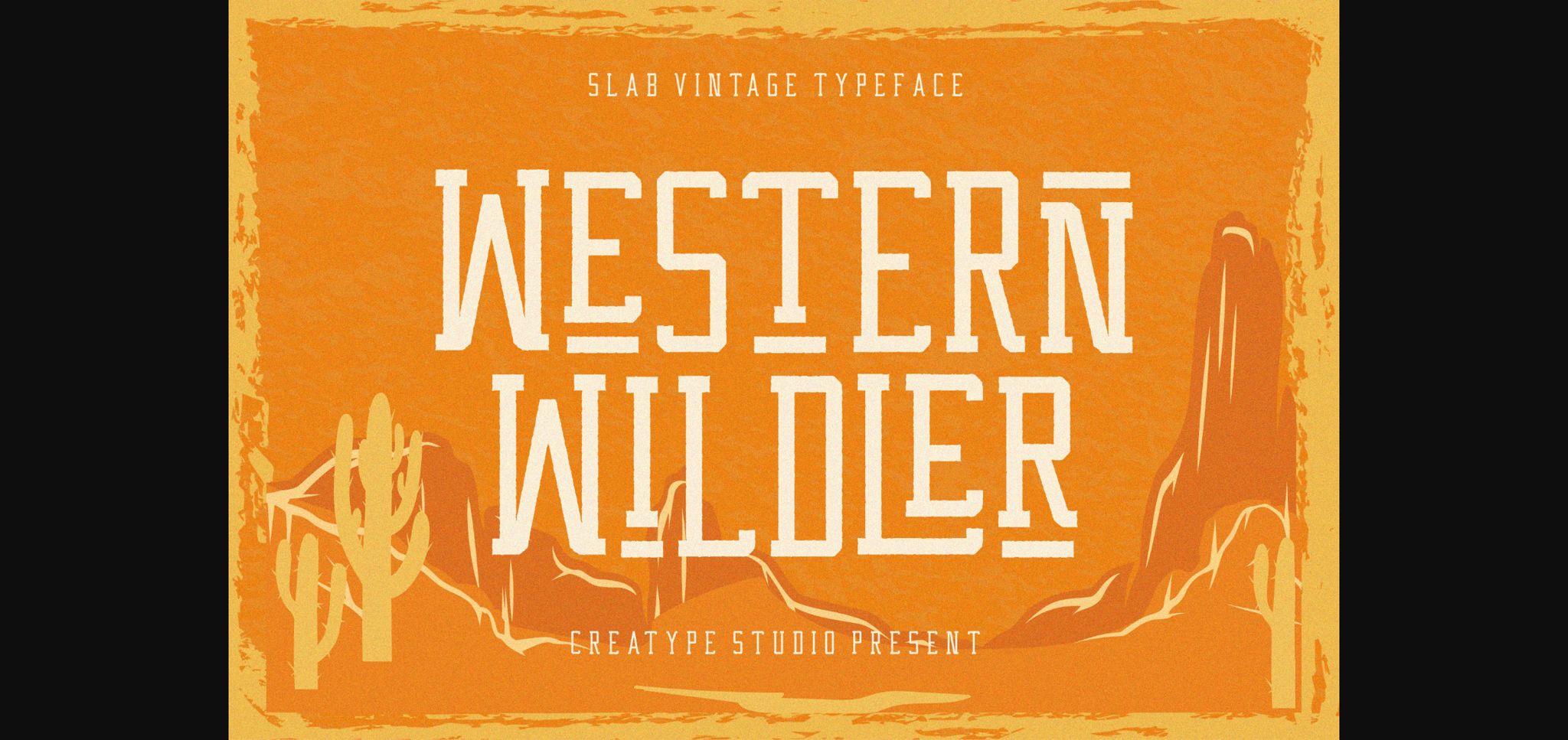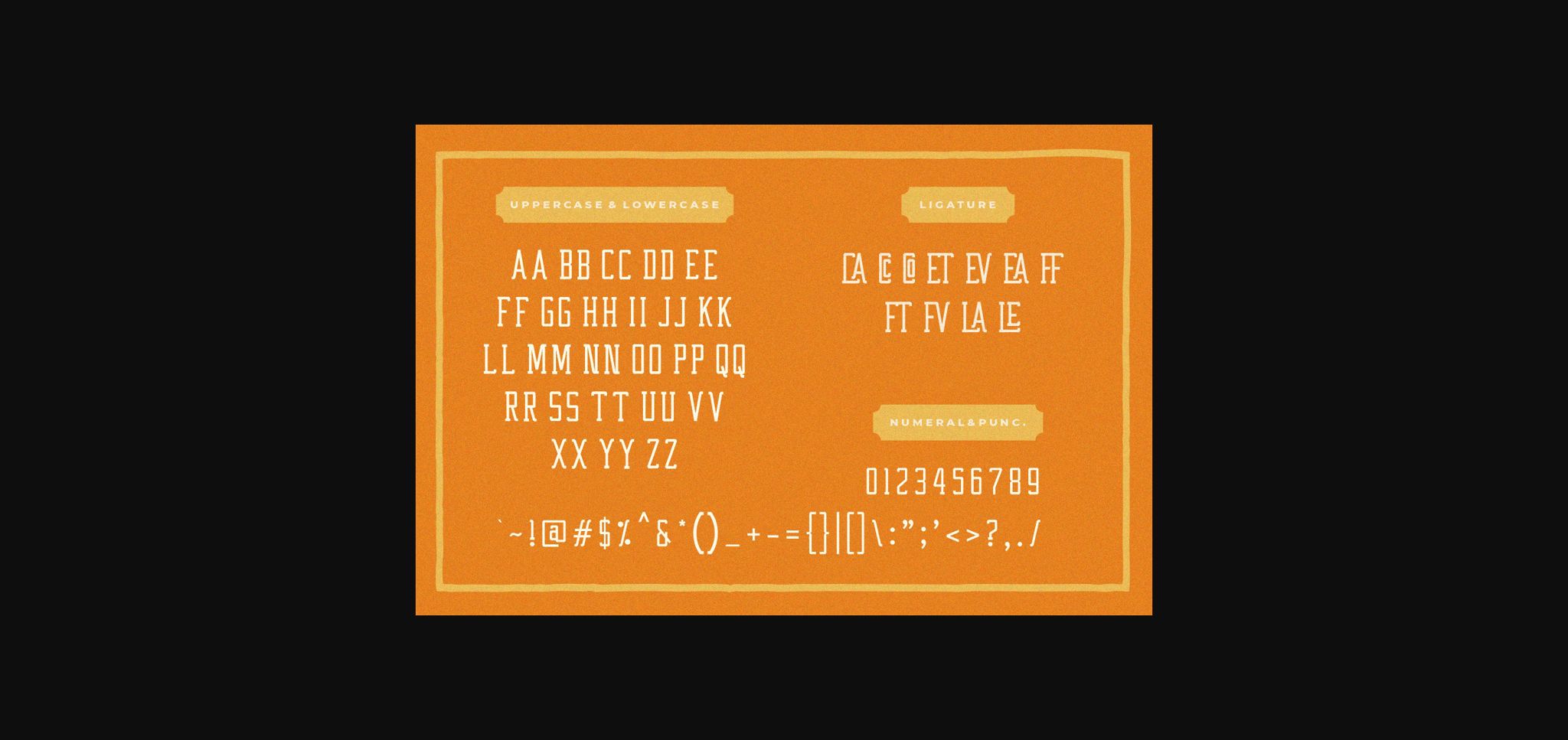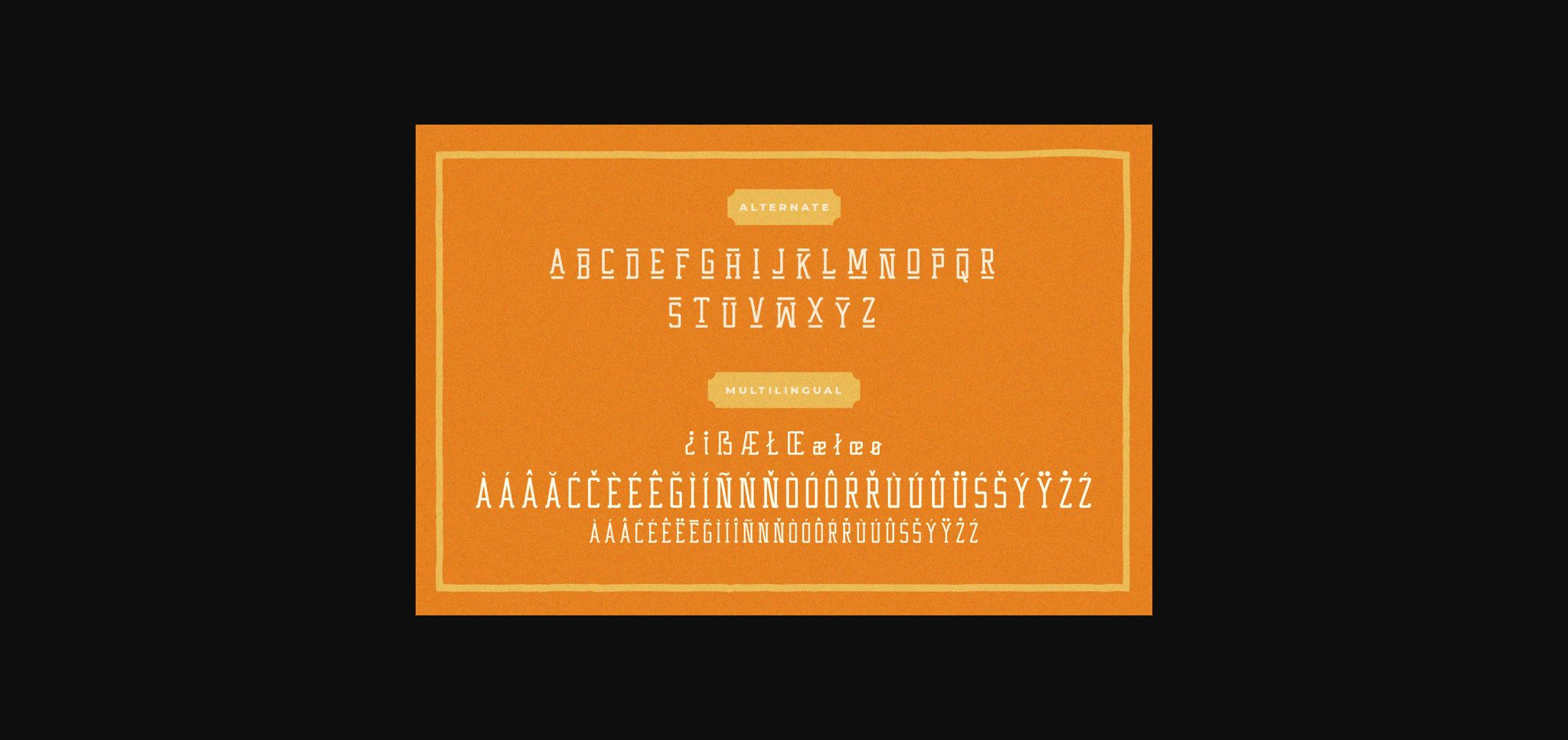
About Western Wildler Font
Western Wildler is a unique sans serif font with a vintage feel. It’s style make it great for creative projects, be it inspirational wall posters or for communicating your brand.